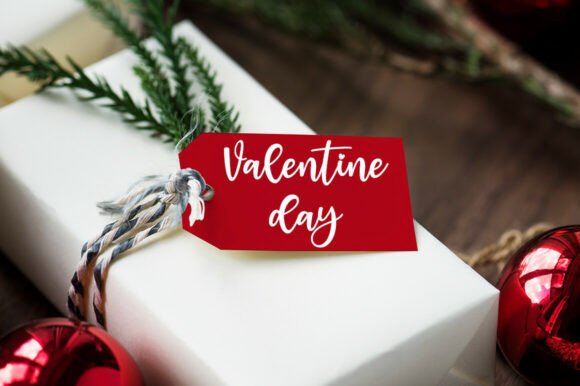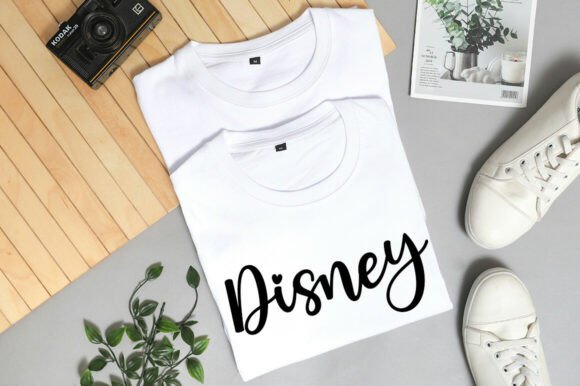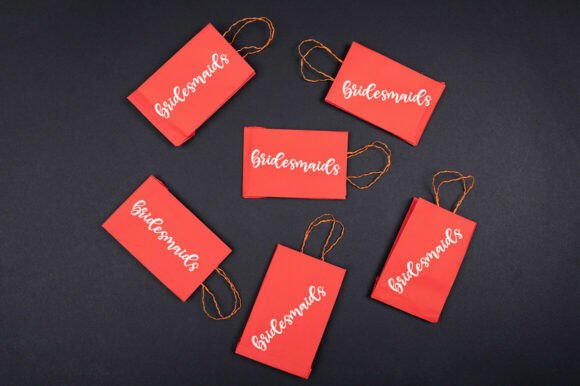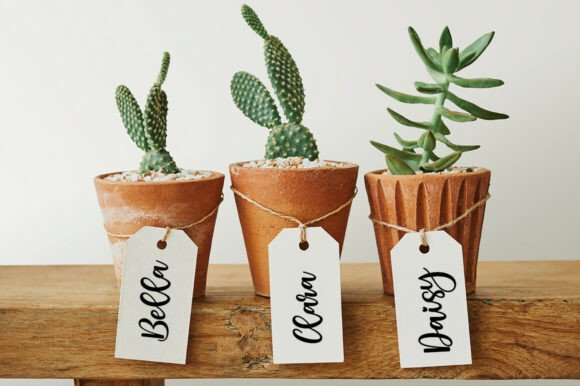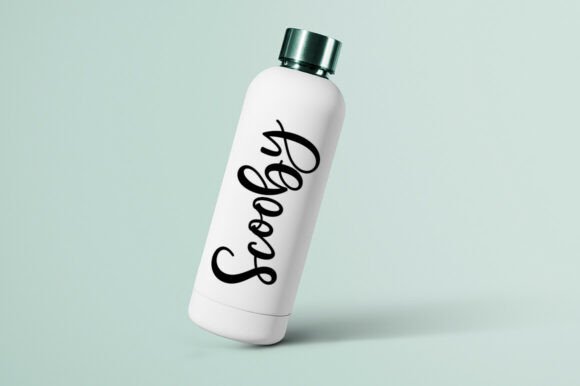
Camila Darmian Font: Elevate Your Designs with Elegant Modern Calligraphy
In the world of typography, few fonts manage to strike a balance between elegance and simplicity as effectively as the Camila Darmian Script. This modern calligraphy typeface has been gaining attention among designers and crafters for its distinctive swashes, fluid strokes, and versatile application possibilities. Whether you’re working on a logo, wedding invitation, or book cover, the Camila Darmian Script offers a refined yet approachable appearance that can elevate your designs to new heights.
The Characteristics of Camila Darmian Script
The Camila Darmian Script is characterized by its elegant swashes and fluid strokes, which give it a dynamic and sophisticated feel. The font’s modern calligraphy style ensures that it remains approachable and legible, making it suitable for a wide range of design purposes. The distinctive swashes add a touch of flair to the font, allowing designers to add personality and style to their work.
Versatility Across Design Applications
One of the key strengths of the Camila Darmian Script is its versatility. This font works exceptionally well across various design applications, including:
- Logos: The font’s elegant and modern style makes it perfect for creating sophisticated logos that stand out.
- Product Packaging: Add a touch of luxury to your product packaging with the Camila Darmian Script.
- Wedding Invitations: The font’s romantic and elegant feel makes it ideal for wedding invitations and other formal event materials.
- Branding: Establish a strong brand identity with the Camila Darmian Script’s distinctive and memorable style.
- Headlines: Use the font to create eye-catching headlines that draw attention and convey sophistication.
- Signage: The font’s clear and elegant style makes it suitable for signage and other large-format applications.
- Labels and Signatures: Add a touch of elegance to your labels and signatures with the Camila Darmian Script.
- Book Covers: The font’s stylish and sophisticated feel makes it perfect for book covers and other publishing materials.
- Posters and Quotes: Use the Camila Darmian Script to create visually striking posters and quotes that convey inspiration and elegance.
Why Choose Camila Darmian Script?
So, why should designers and crafters choose the Camila Darmian Script for their projects? Here are a few compelling reasons:
- Balanced Visual Appeal: The font offers a perfect balance of elegance and simplicity, making it suitable for a wide range of design applications.
- Functional Versatility: The Camila Darmian Script works well across various design applications, from logos and branding to book covers and posters.
- Easy to Read: Despite its elegant and cursive style, the font remains clear and legible, ensuring that your message is conveyed effectively.
- Unique and Memorable: The font’s distinctive swashes and fluid strokes make it stand out from more traditional typefaces, allowing designers to create unique and memorable designs.
Tips for Using Camila Darmian Script Effectively
To get the most out of the Camila Darmian Script, consider the following tips:
- Pair with Complementary Fonts: Combine the Camila Darmian Script with sans-serif or serif fonts to create visual interest and hierarchy in your designs.
- Use for Headlines and Titles: The font’s elegant style makes it perfect for headlines and titles, while simpler fonts can be used for body text.
- Experiment with Swashes: Take advantage of the font’s distinctive swashes to add personality and flair to your designs.
- Consider the Context: Ensure that the font aligns with the tone and purpose of your project, whether it’s formal, informal, or decorative.
In conclusion, the Camila Darmian Script is a versatile and elegant modern calligraphy typeface that offers a refined yet approachable appearance. Its distinctive swashes, fluid strokes, and balanced visual appeal make it suitable for a wide range of design applications, from logos and branding to book covers and posters. By incorporating the Camila Darmian Script into your designs, you can add a touch of sophistication and elegance that sets your work apart.